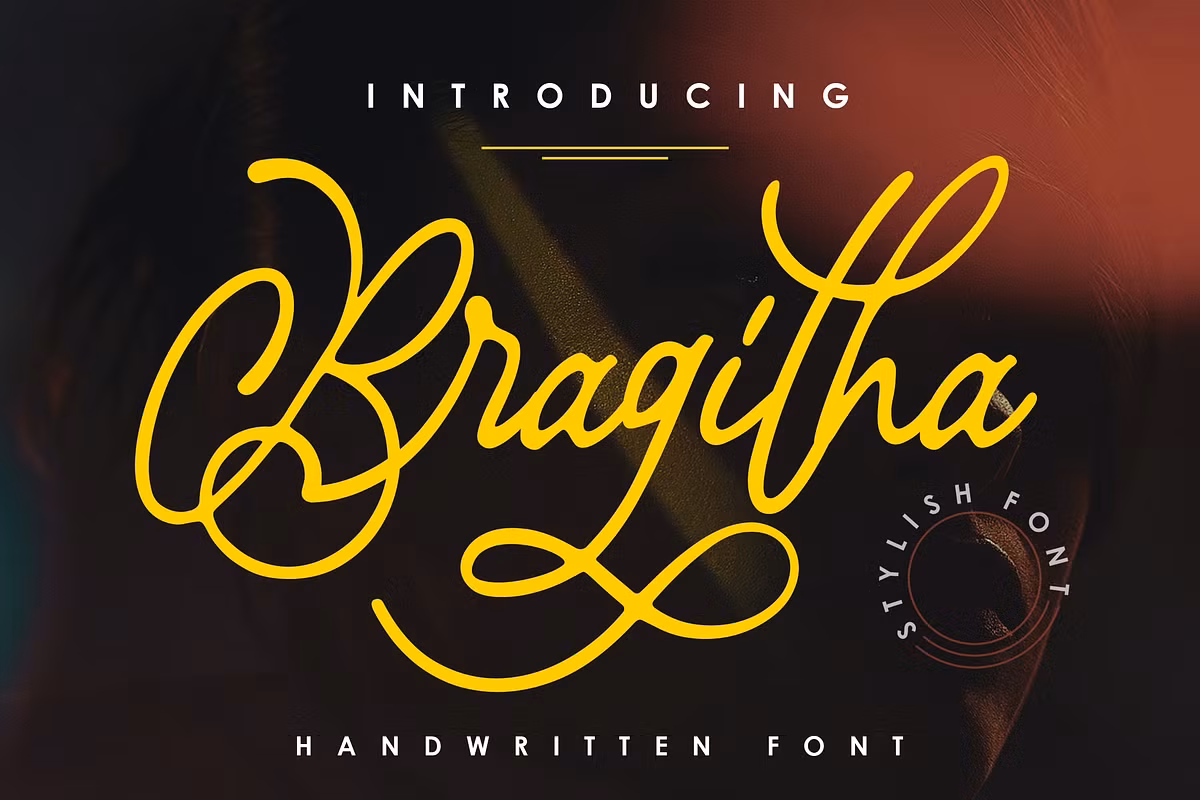
Bragitha Stylish Font Free Download is a chic and elegant script typeface that blends modern calligraphy with a fashionable flair. With its flowing strokes, refined curves, and graceful swashes, Bragitha is perfect for branding, beauty products, wedding stationery, social media posts, and high-end packaging. It adds a touch of sophistication and femininity to any design.
Crafted with attention to detail, Bragitha Stylish Font Free Download includes ligatures and stylistic alternates, allowing you to create truly custom and expressive typography. It’s ideal for creating stylish logos, elegant headlines, or romantic quotes that leave a lasting impression.